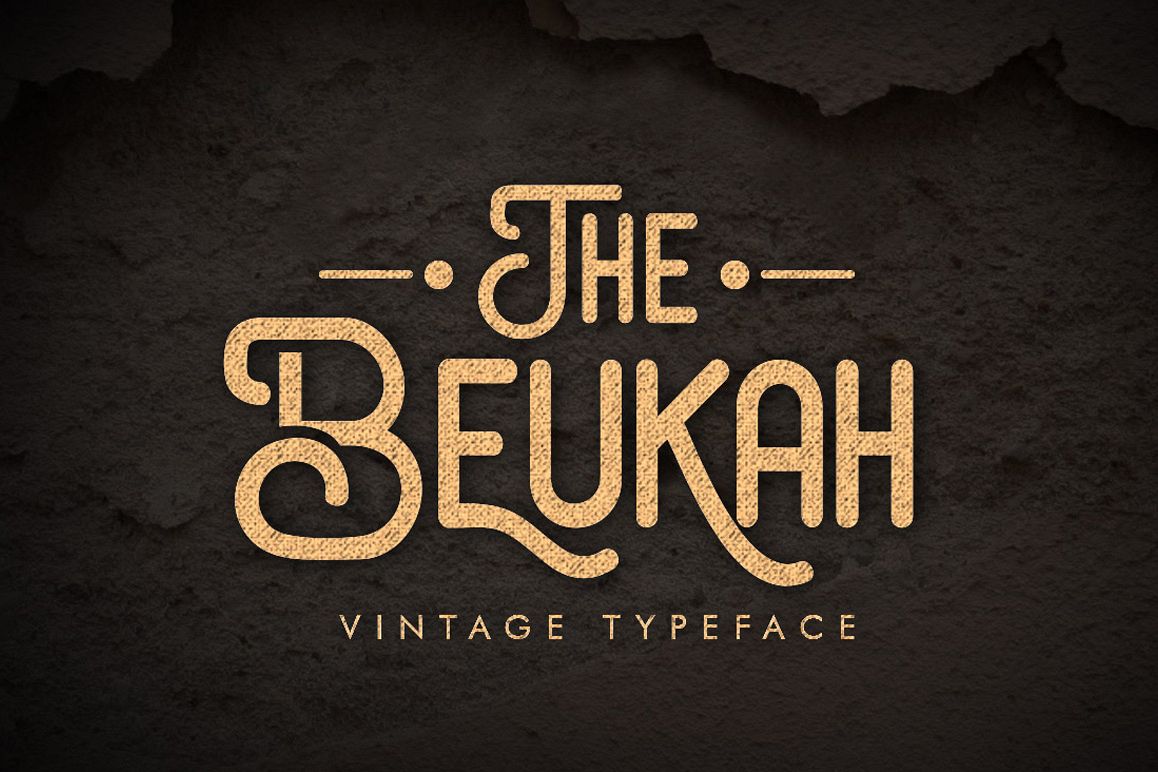
The Beukah (Duo Font)
The Beukah Vintage Font Duo is a fun display font pack intended to be used in retro and vintage designs. The Beukah Font pack comes with 2 different style, The Beukah Regular and The Beukah Basic. It is suitable for posters, t-shirts, letterings, greeting cards, etc.